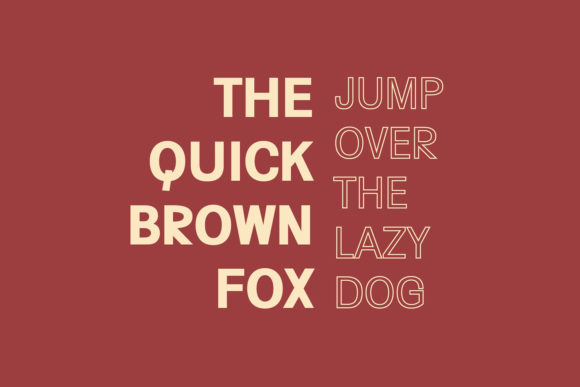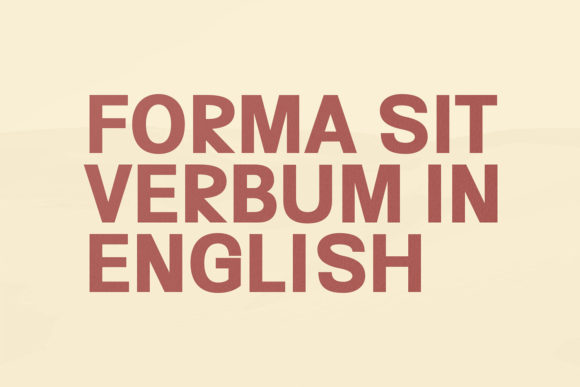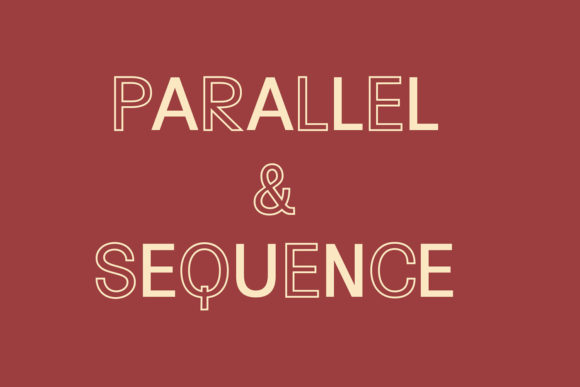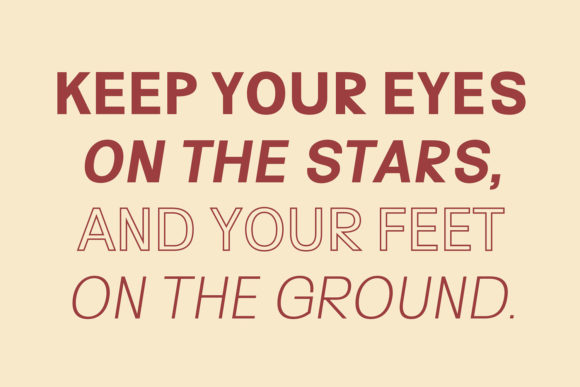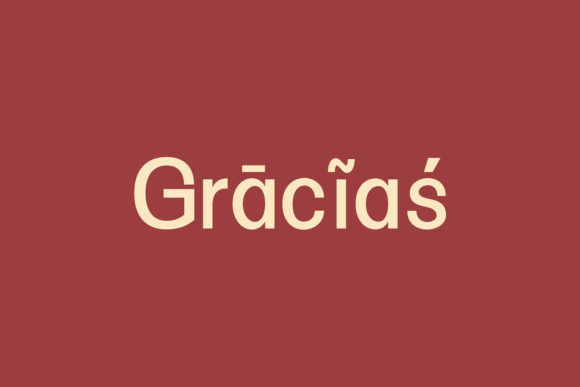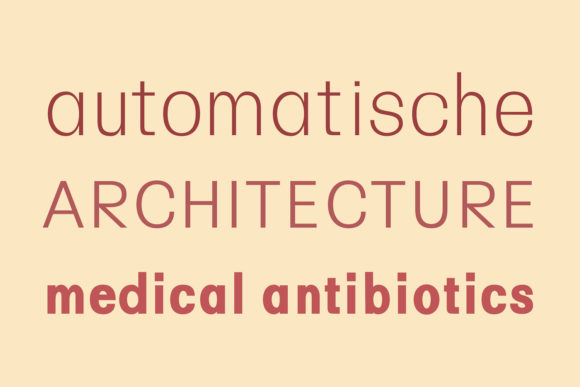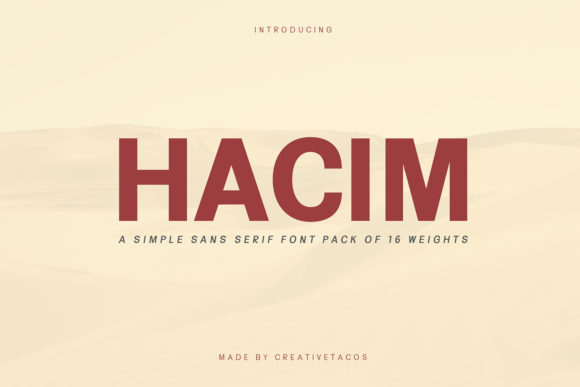
Hacim Family Font: Elevate Your Designs with a Modern Sans Serif
In the world of typography, a font can make or break a design. For creatives, finding the perfect typeface that complements their vision can be a daunting task. This is where the Hacim Family Font comes in – a modern sans serif font family designed to bring a touch of sophistication and elegance to any project. In this article, we’ll dive into the features and benefits of Hacim, and explore how it can elevate your designs to the next level.
What is Hacim Family Font?
Hacim is a modern sans serif font family that boasts a clean and solemn look, making it perfect for a wide range of applications. From logos and packaging to headlines, branding, posters, magazines, and more, Hacim is designed to complement any creative idea. Its sleek and contemporary design ensures that your designs stand out from the crowd, while its versatility allows it to adapt to various styles and themes.
Key Features of Hacim Family Font
- Modern Sans Serif Design: Hacim’s sans serif design gives it a fresh and modern look that’s perfect for contemporary designs.
- Clean and Solemn Look: The font’s clean lines and solemn appearance make it ideal for projects that require a touch of sophistication.
- Highly Versatile: Hacim can be used for a wide range of applications, from logos and branding to posters and magazines.
- Easy to Read: The font’s clear and legible design ensures that your message is conveyed effectively, making it perfect for body text and headlines.
Benefits of Using Hacim Family Font
So, why choose Hacim Family Font for your next project? Here are just a few benefits of using this versatile typeface:
- Enhance Your Brand’s Visual Identity: Hacim’s modern design and clean lines make it perfect for creating a strong visual identity for your brand.
- Stand Out from the Crowd: With Hacim, you can create designs that stand out from the competition and grab the attention of your audience.
- Save Time and Effort: The font’s versatility and ease of use save you time and effort, allowing you to focus on other creative aspects of your project.
- Perfect for Digital and Print: Hacim is optimized for both digital and print use, ensuring that your designs look great across various mediums.
Who Can Benefit from Hacim Family Font?
Hacim Family Font is perfect for a wide range of designers and crafters, including:
- Graphic Designers: Hacim is ideal for graphic designers looking for a modern sans serif font that’s perfect for branding, logos, and marketing materials.
- UI/UX Designers: The font’s clean and legible design makes it perfect for UI/UX designers looking for a typeface that’s easy to read on various devices.
- Crafters and Makers: Hacim is also perfect for crafters and makers looking for a font that’s versatile and easy to use for various craft projects.
In conclusion, Hacim Family Font is a versatile and modern sans serif font family that’s perfect for designers and crafters looking to elevate their designs. With its clean and solemn look, Hacim can complement any creative idea and add a touch of sophistication to your projects. Whether you’re a graphic designer, UI/UX designer, or crafter, Hacim is an excellent choice for any project that needs a modern and elegant typeface.